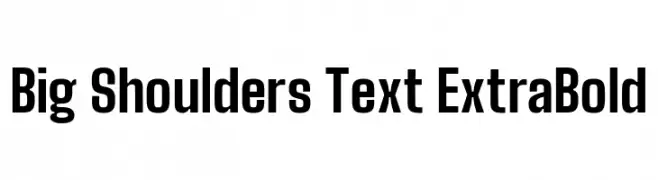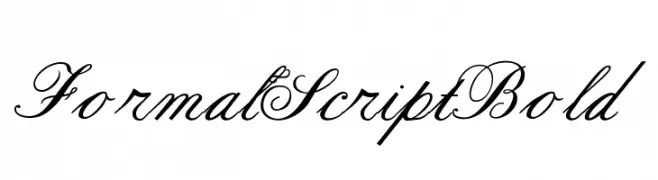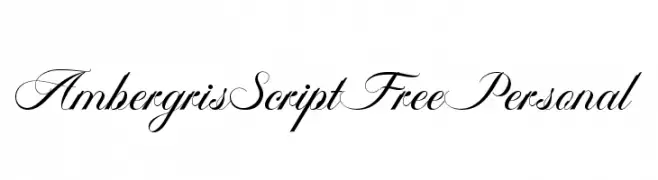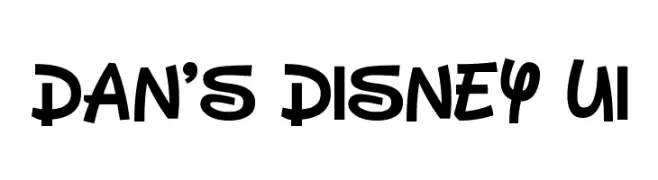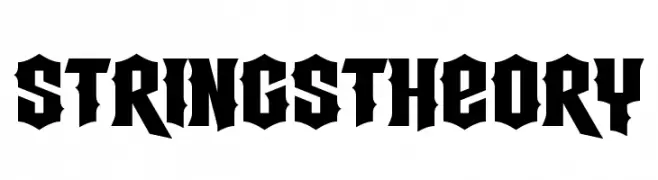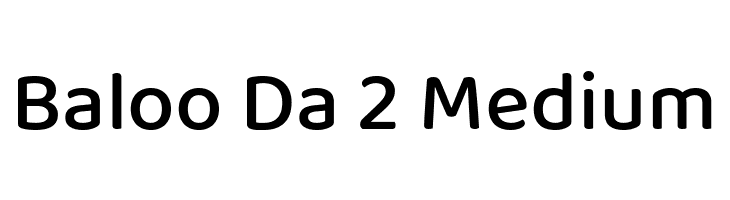
A bold, geometric typeface perfect for impactful headlines.
A bold, elegant script font with intricate, flowing letterforms.
A modern, geometric monospaced font with clean lines and uniform character width.
A sophisticated script font with high contrast and elegant, flowing strokes.
A playful, bold font with rounded characters and a whimsical style.
A serif font with sharp, angular serifs and a blend of classic and modern elements.
A modern, geometric font with clean lines and a minimalist style.
A bold, gothic-inspired font with sharp, angular edges and high contrast.